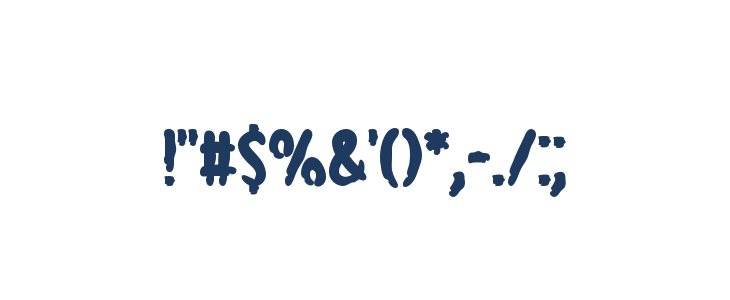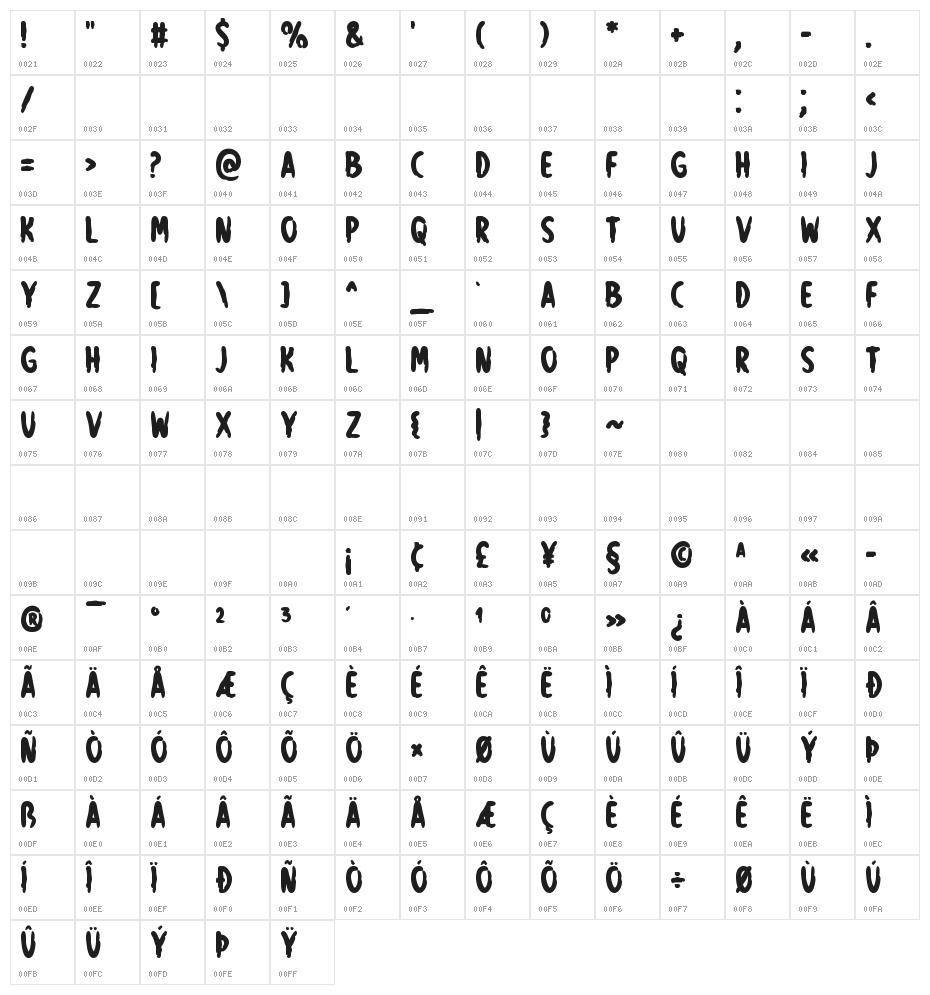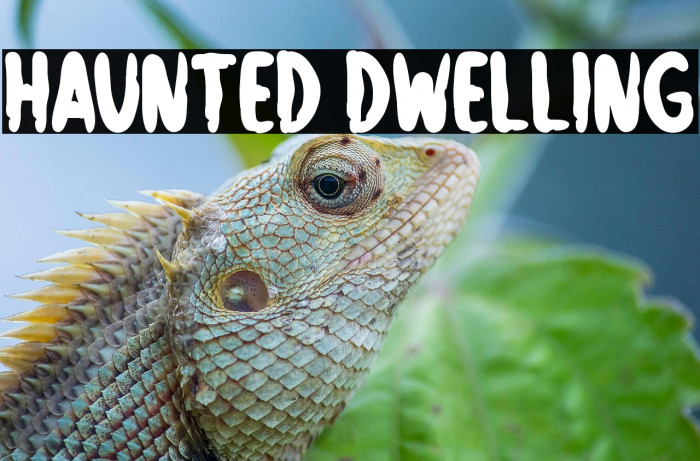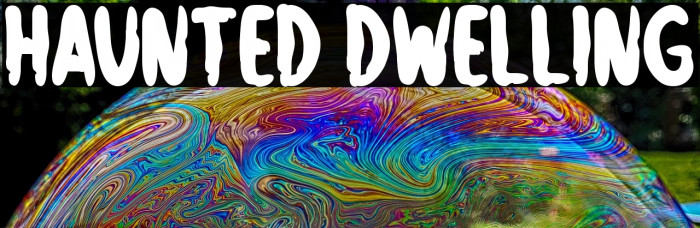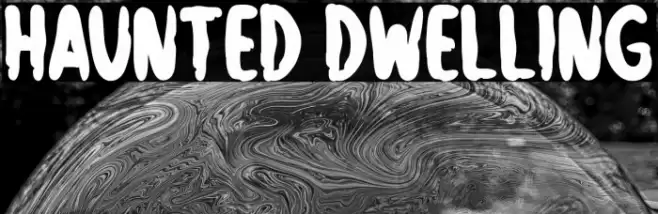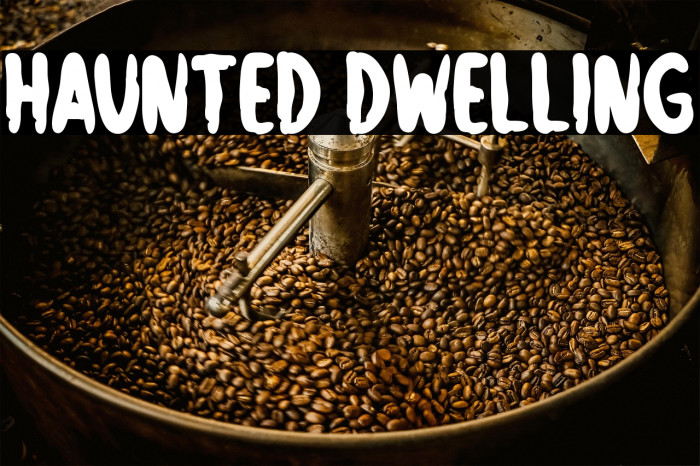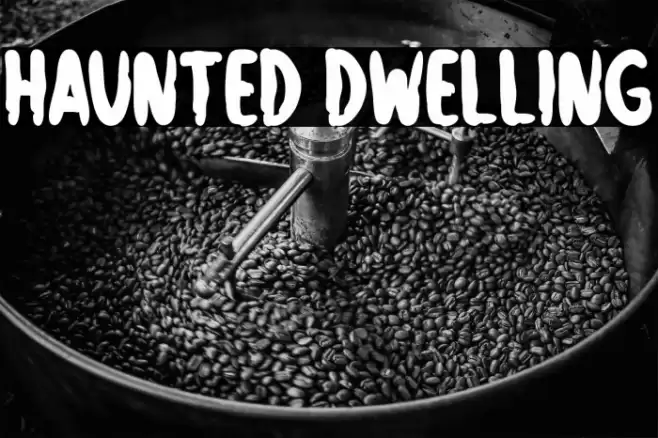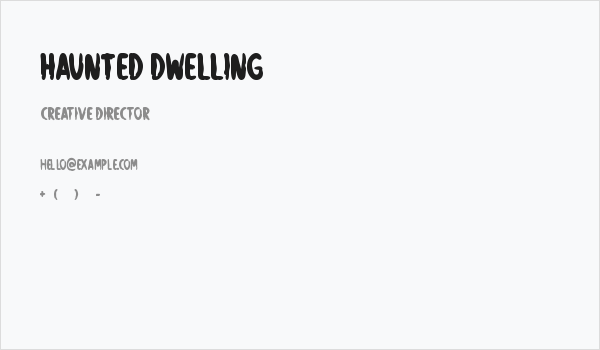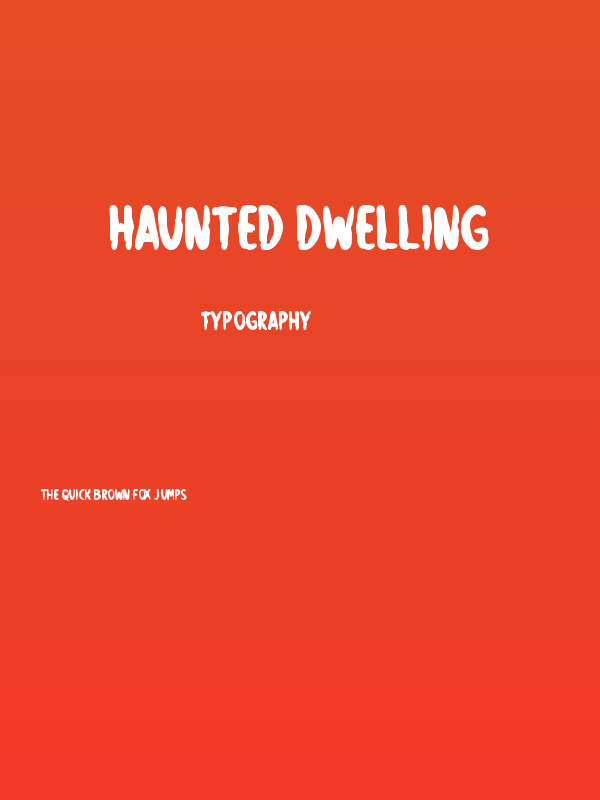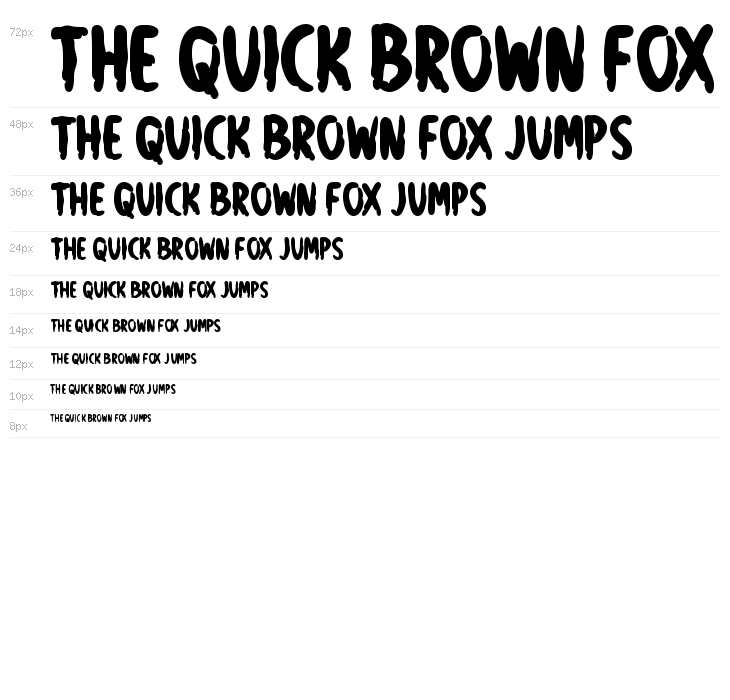
Haunted Dwelling Font
Haunted Dwelling Description
This font features a bold and playful design with a spooky, dripping effect reminiscent of haunted houses and Halloween themes. The characters are thick and rounded, with uneven edges that give them a hand-drawn appearance. The uppercase letters are consistent in height, while the lowercase letters maintain a similar style, enhancing the font's cohesive look. The numbers and special characters follow the same design principles, making them suitable for thematic projects. The overall style is decorative and eye-catching, perfect for creating a sense of mystery and fun.